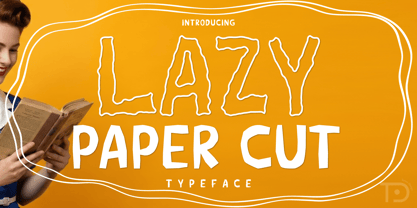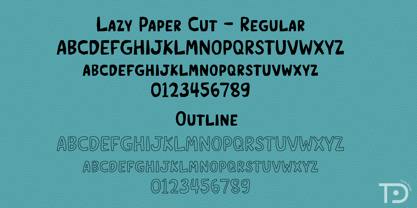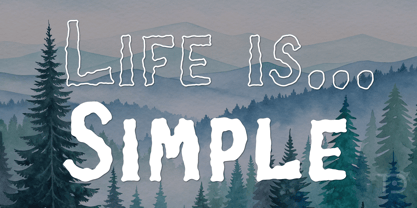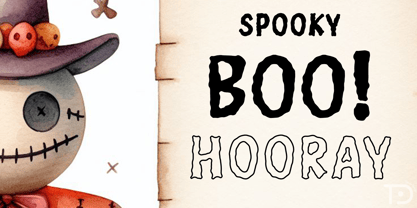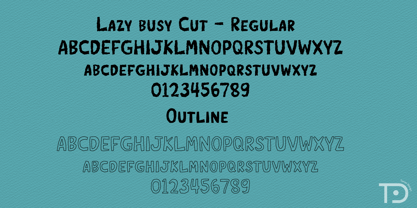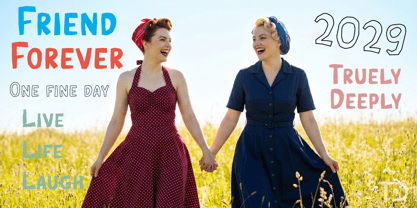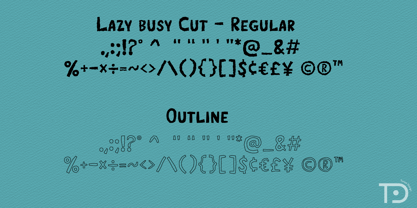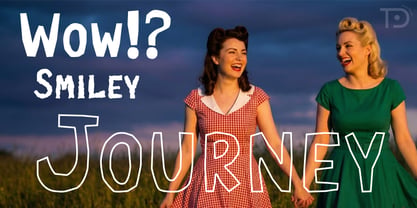
Lazy Paper Cut
von Tanon Design
Die Schriftfamilie Lazy Paper Cut wurde von Tanonnat Kaeoket entworfen und von Tanon Design veröffentlicht. Lazy Paper Cut enthält 4 Stile und Familienpaketoptionen. Mehr über diese Familie
Introducing the Lazy Paper Cut 4 fonts bundle, a whimsical collection that seamlessly blends bold, handcrafted design with the nostalgic charm of paper cuts. Featuring a rough and wavy texture, this unique font is an exceptional tool for infusing character and individuality into your projects. Its playful vibe is ideal for making a statement on t-shirts, establishing a distinctive identity for your brand, or creating festive packaging for holidays. Additionally, it adds a personal touch to greeting cards, enhances café menus with a relaxed and inviting feel, and inspires DIY projects with its expressive form. Embrace the hand-drawn magic of the Lazy Paper Cut 4 font bundle and let your designs flourish with charisma and creativity.
Designer: Tanonnat Kaeoket
Foundry: Tanon Design